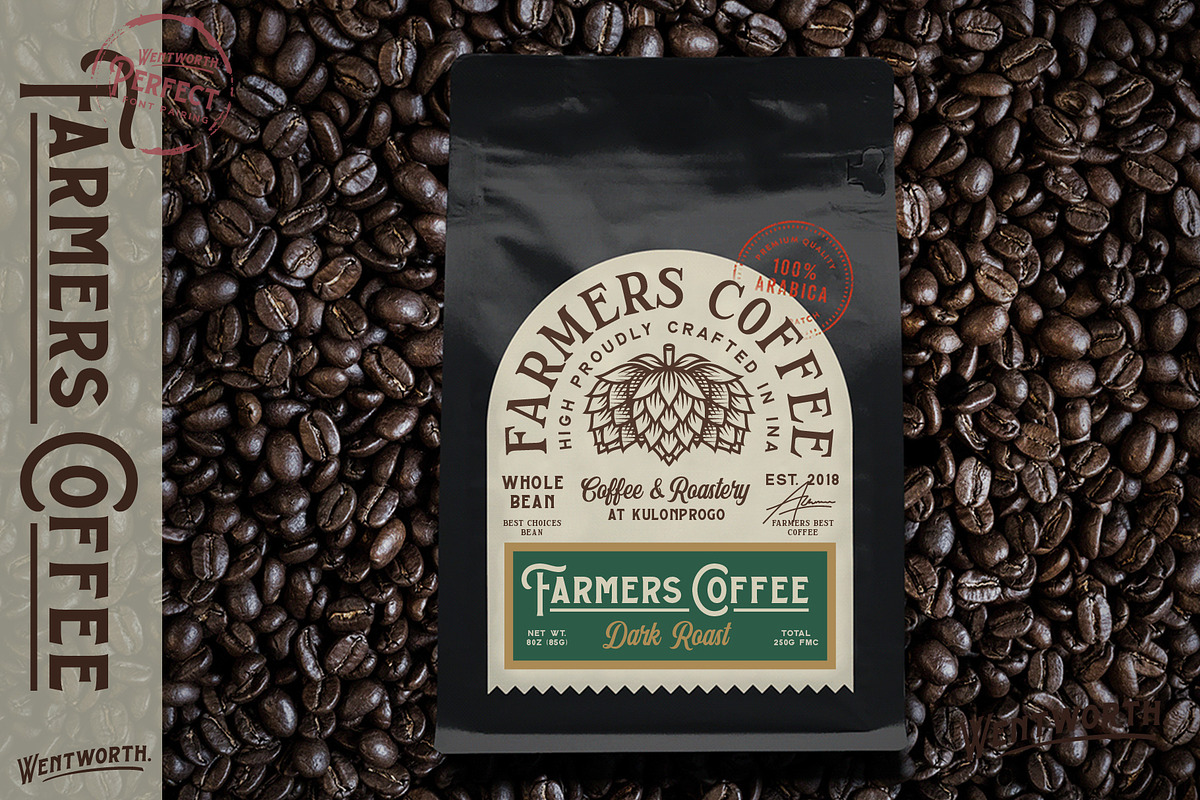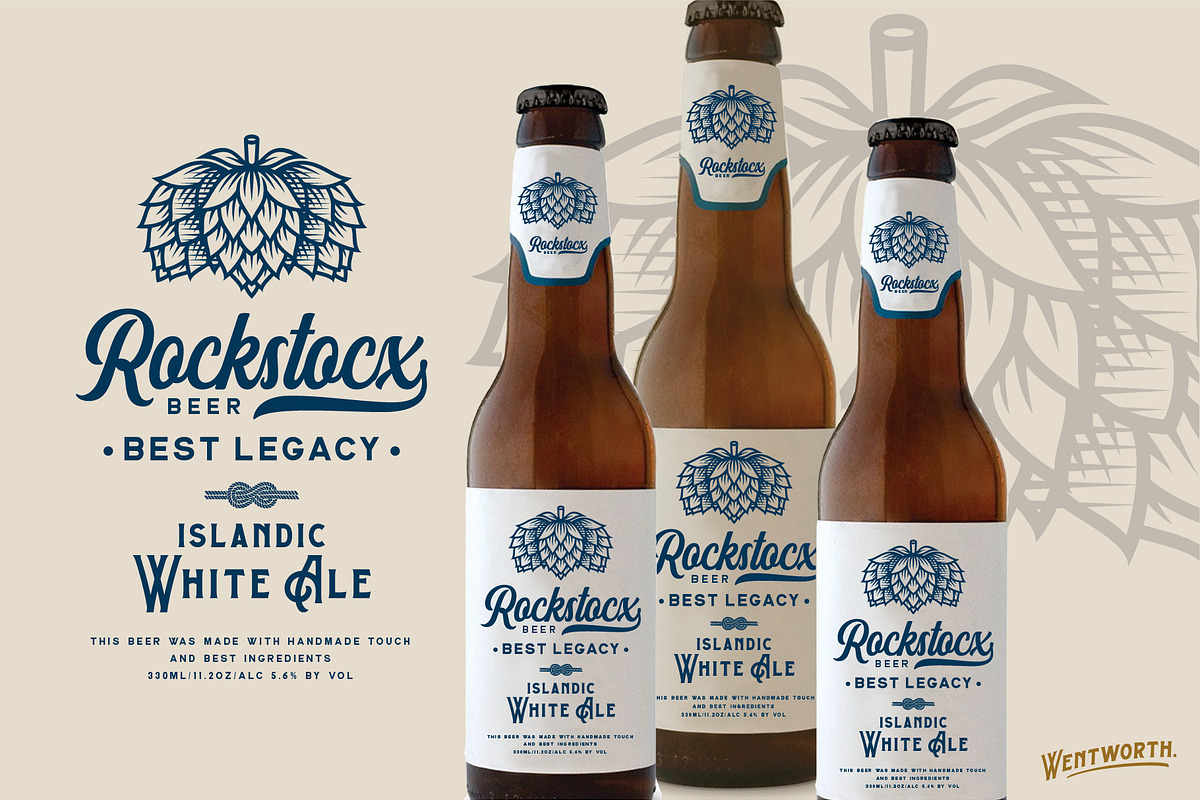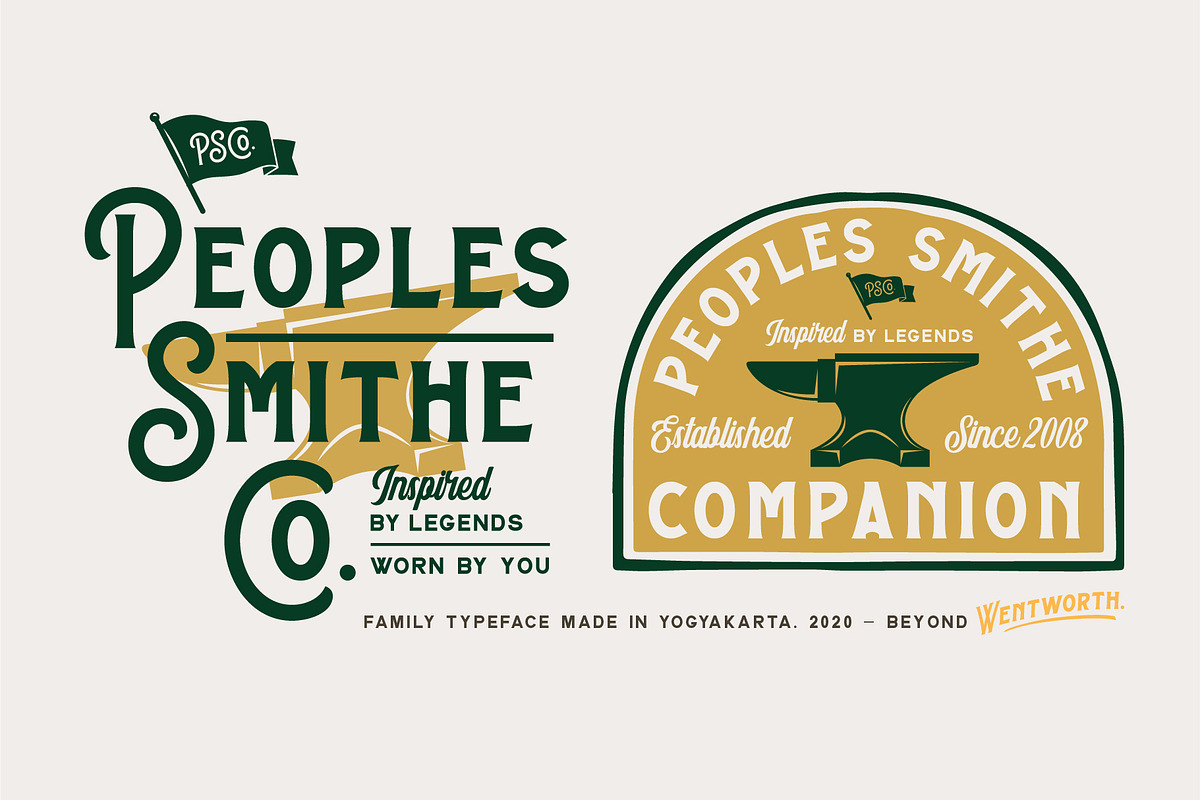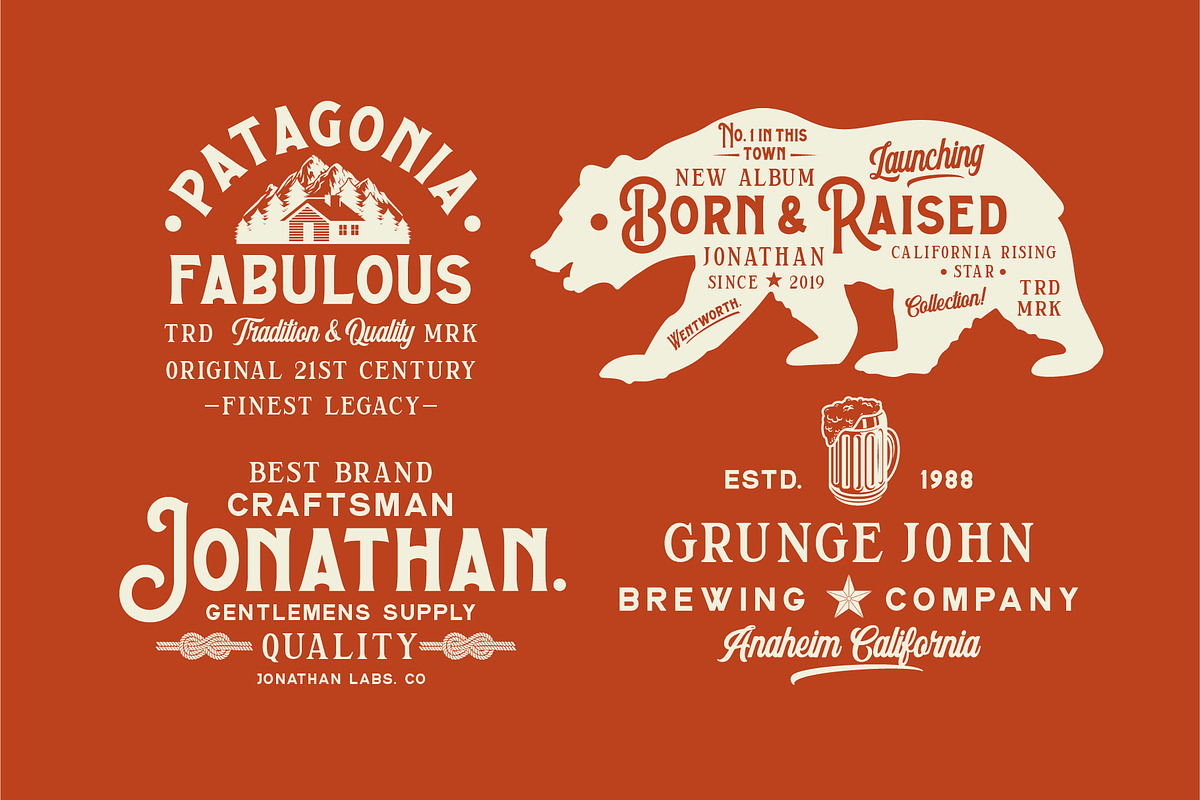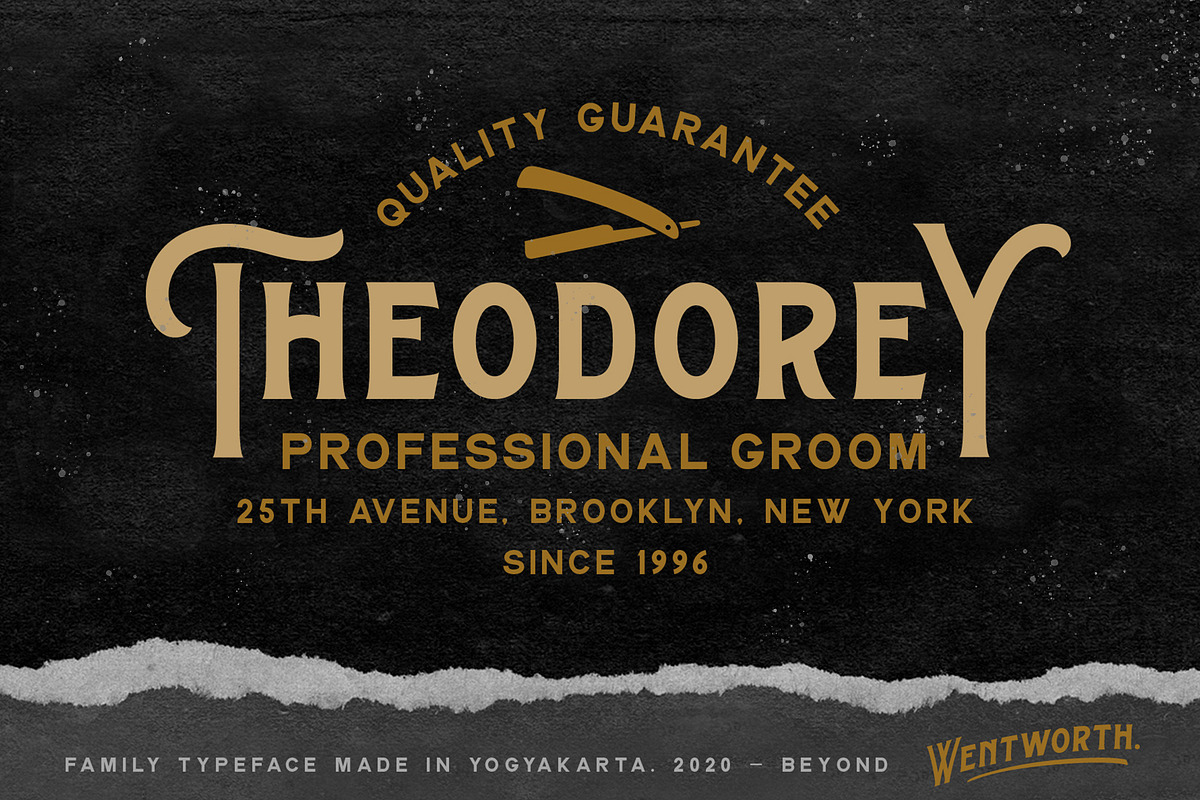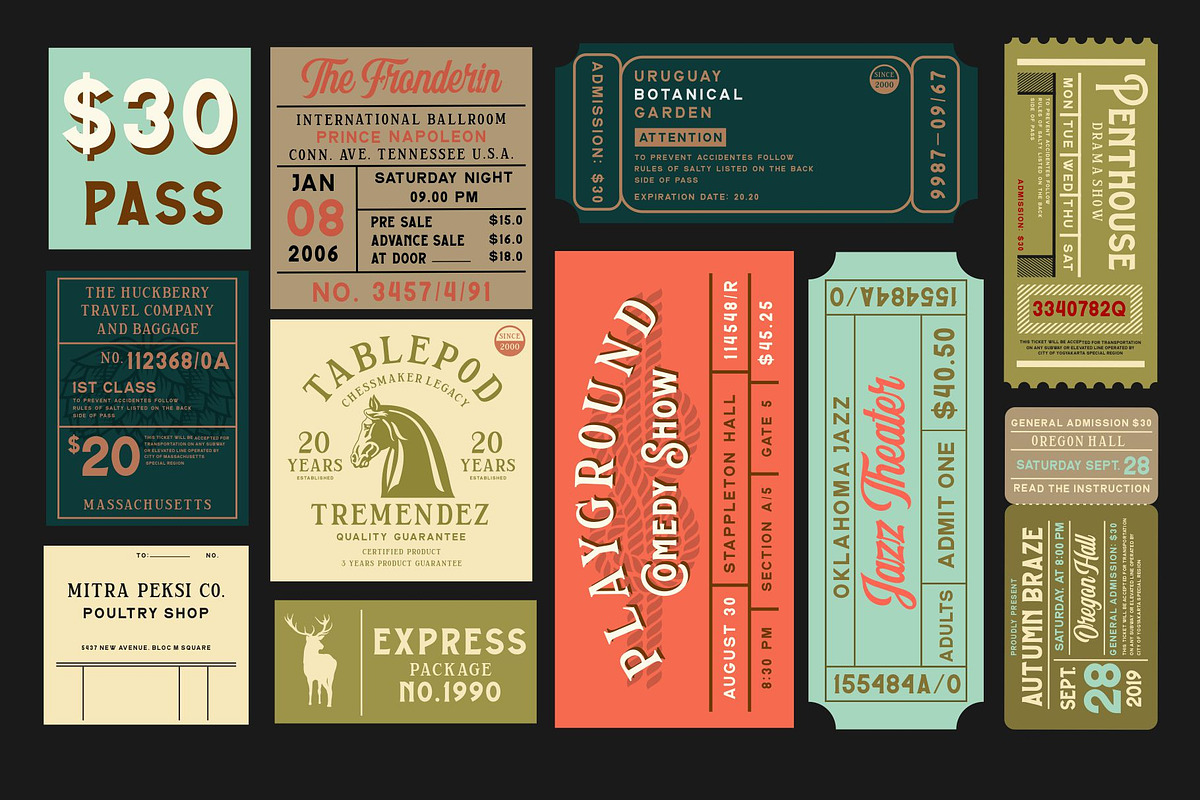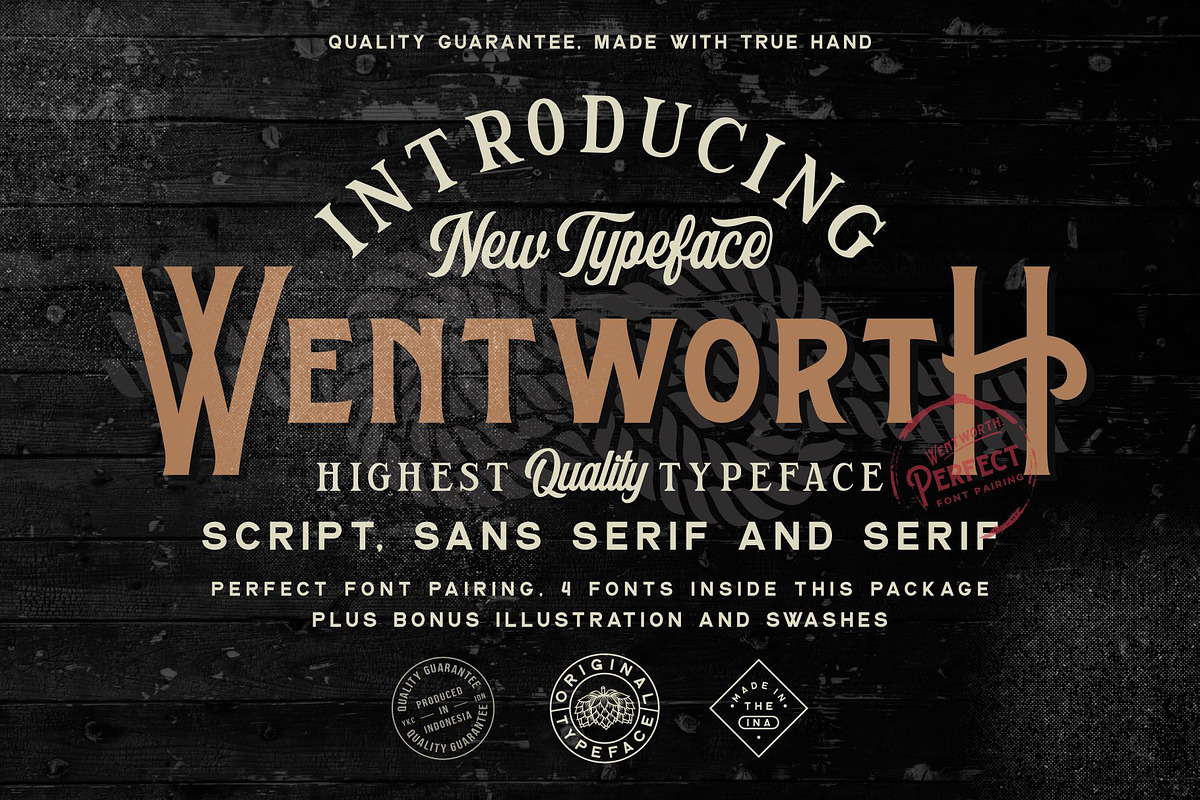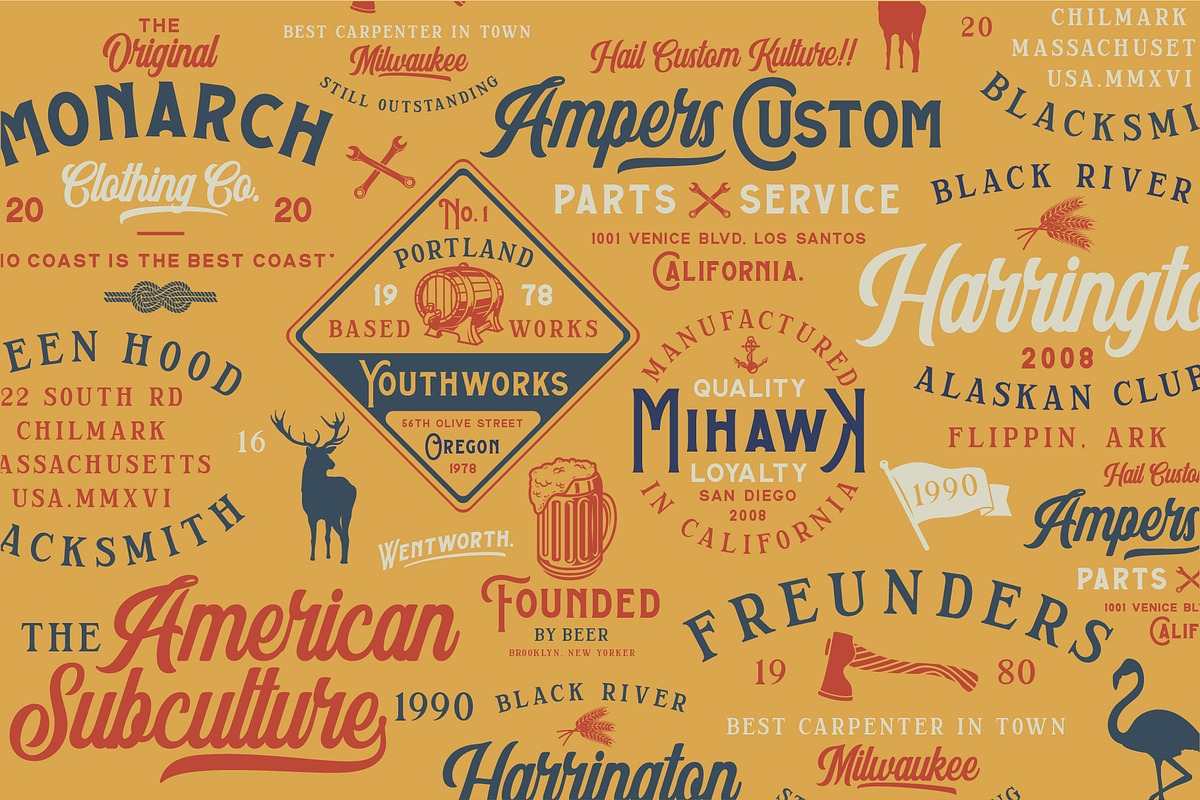
Wentworth Typeface
Wentworth is handmade vintage script, serif and some serif fonts. Inspired by classic western culture, custom culture motorcycle and combining with vintage touch. There's 4 fonts that would be perfect to combine in your design, especially on vintage design. With bonus illustration and swashes in this package, this fonts are great for logotype, badges, clothing, poster, and much more. This fonts comes with opentype features and .eps format for illustration pack also many alternative style to improve your design.
Uppercase and lowercase character (only uppercase for sans-serif and serif)
Numeral, Punctuation and Symbol
- With bonus illustration and swashes in this package, this fonts are great for logotype, badges, clothing, poster, and much more.
- This fonts comes with opentype features and .eps format for illustration pack also many alternative style to improve your design.
- Features Uppercase and lowercase character (only uppercase for sans-serif and serif) Numeral, Punctuation and Symbol Opentype format Bonus i
- Wentworth Sans Serif
- Wentworth Script
- Wentworth Serif
- Wentworth Swash